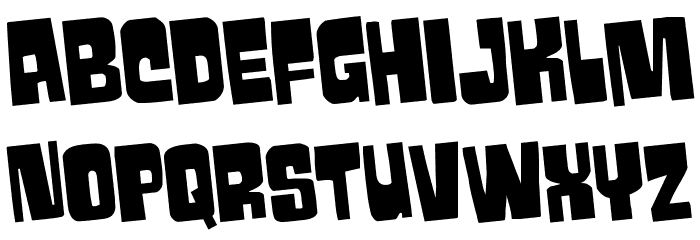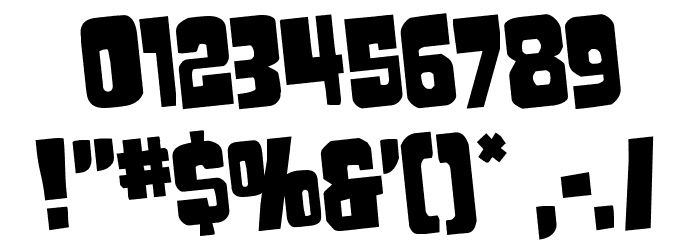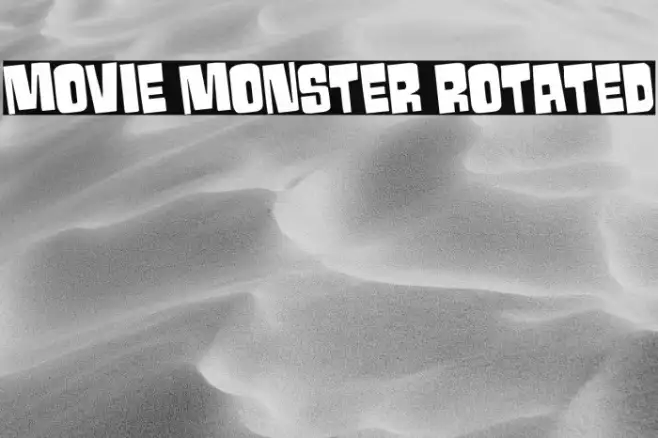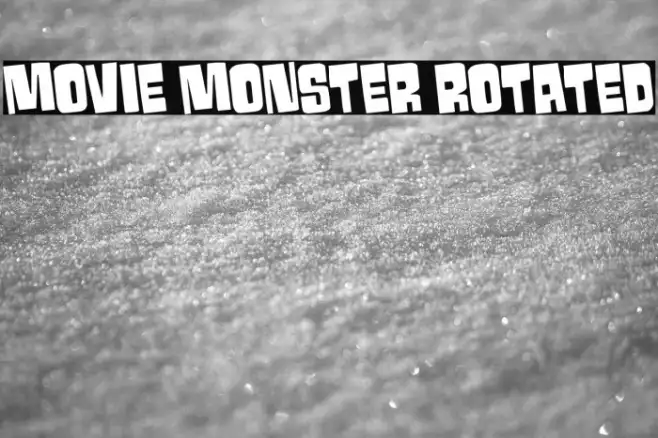
Movie Monster Rotated Font
This font features a bold and impactful design with thick, blocky letters that convey a sense of strength and intensity. The characters have a slightly irregular, jagged edge, adding a dynamic and energetic feel. The uppercase and lowercase letters maintain a consistent weight, creating a cohesive look. The numbers and special characters follow the same bold style, ensuring uniformity across all text elements. This font's unique style makes it ideal for projects that require a strong visual presence.
A bold, blocky font with jagged edges for a strong, dynamic look.
- Font: Movie Monster Rotated
- Proposed Projects: Ideal for movie posters, video game covers, Halloween-themed events, or any project needing a bold, eye-catching typeface.